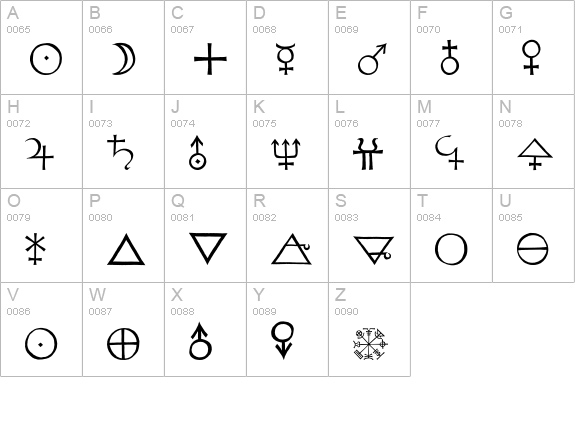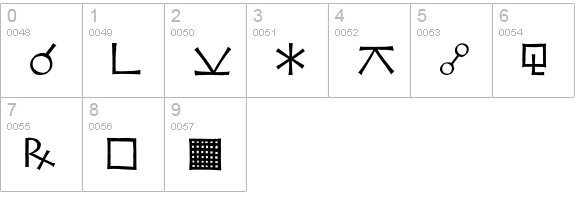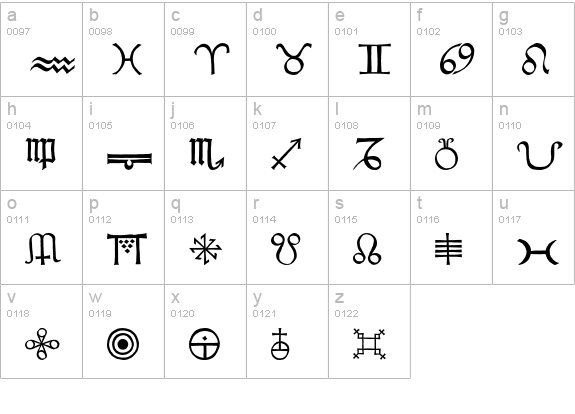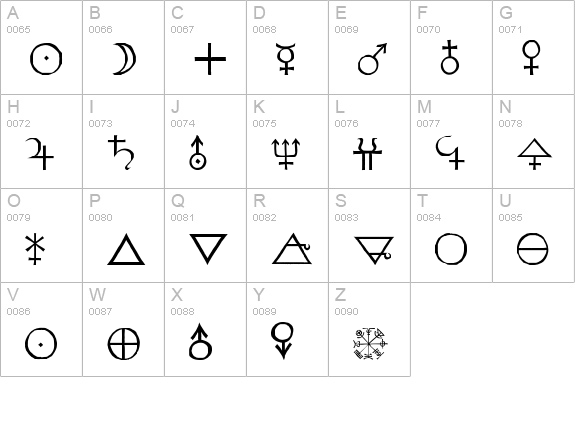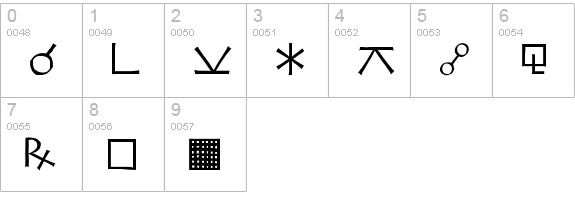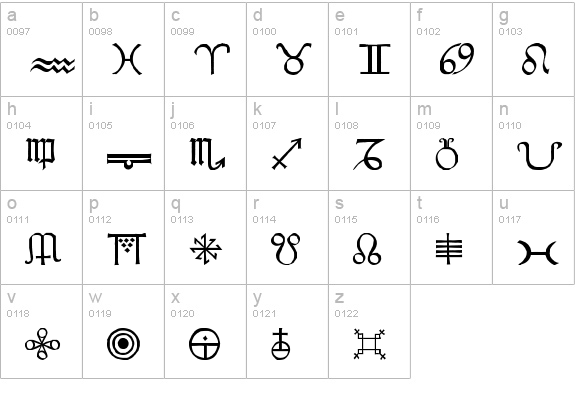
Avenatha Font Details
Avenatha font is a stunning display typeface that exudes elegance and charm. With its intricate details and graceful curves, this font is perfect for adding a touch of sophistication to your design projects. Whether you're working on invitations, branding materials, or social media graphics, Avenatha font will make your text stand out beautifully. The best part? Avenatha font is completely free to download at FontsMarket.com. This means you can elevate your designs without breaking the bank. Don't miss out on the opportunity to enhance your creations with this exquisite font. Download Avenatha today and let your creativity shine!